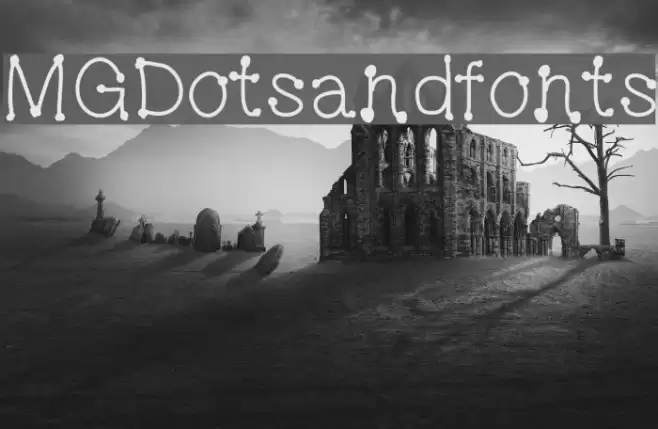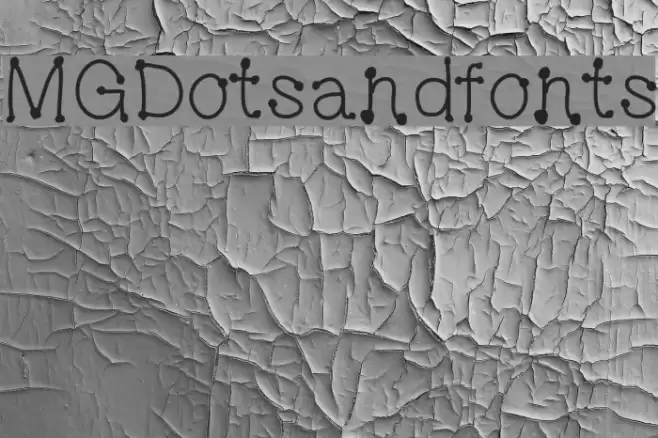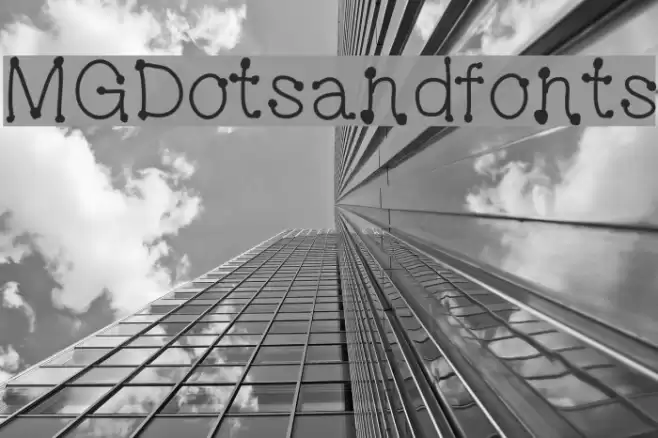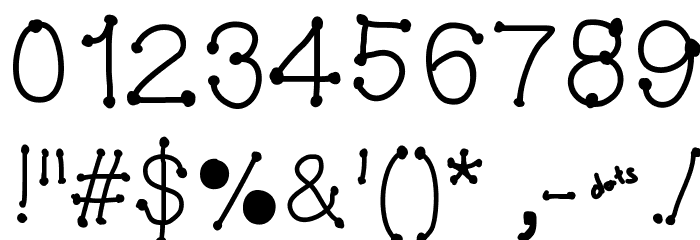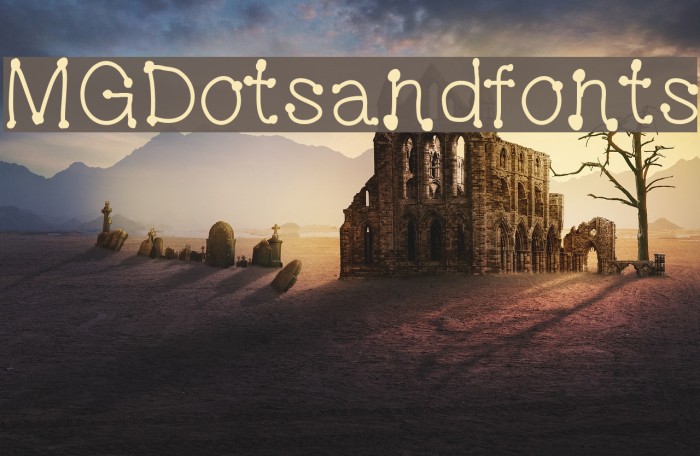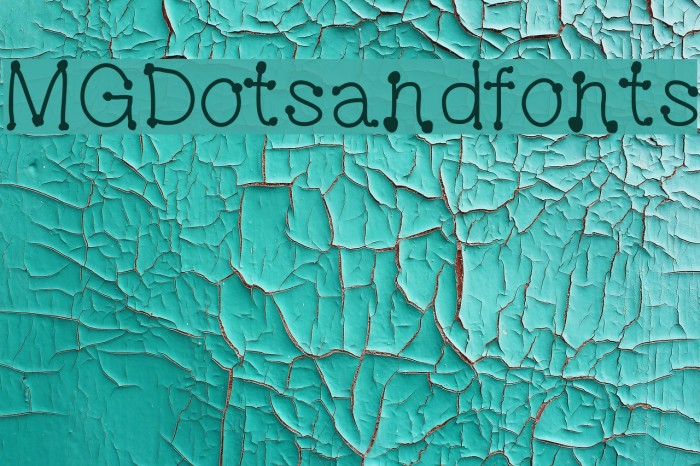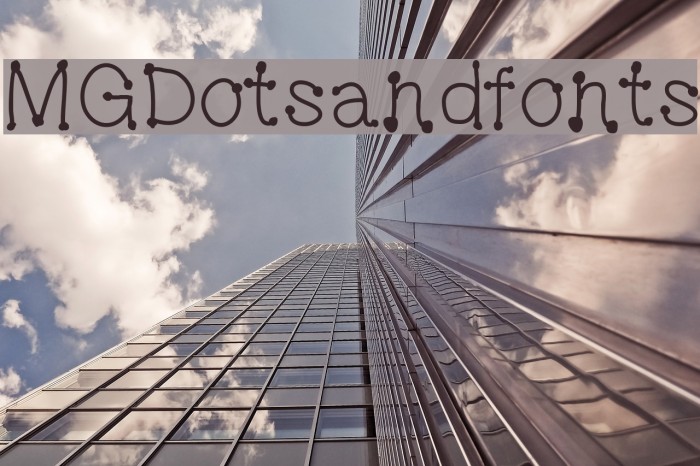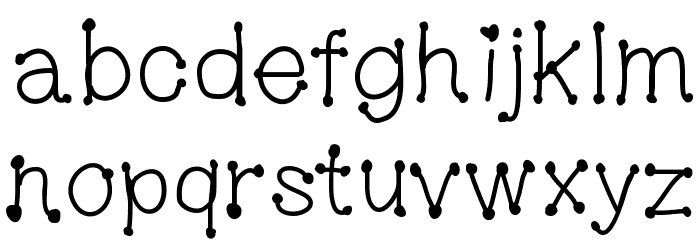
MGDotsandfonts Font
MGDotsandfonts Description
This playful and whimsical font features a unique design where each character is connected by dots, giving it a fun and creative appearance. The letters are rounded and have a hand-drawn quality, making them appear friendly and approachable. The font includes both uppercase and lowercase letters, numbers, and a variety of special characters, all maintaining the dotted theme. Its distinct style makes it stand out, perfect for projects that require a touch of creativity and uniqueness.
A playful, dotted font with a hand-drawn, whimsical style from Uncategorized fonts.
- Proposed Projects: Ideal for children's books, playful branding, creative invitations, and artistic posters.
- Overall Style: Whimsical, Playful, Creative
- Use Case: Headlines, Logos, Creative projects